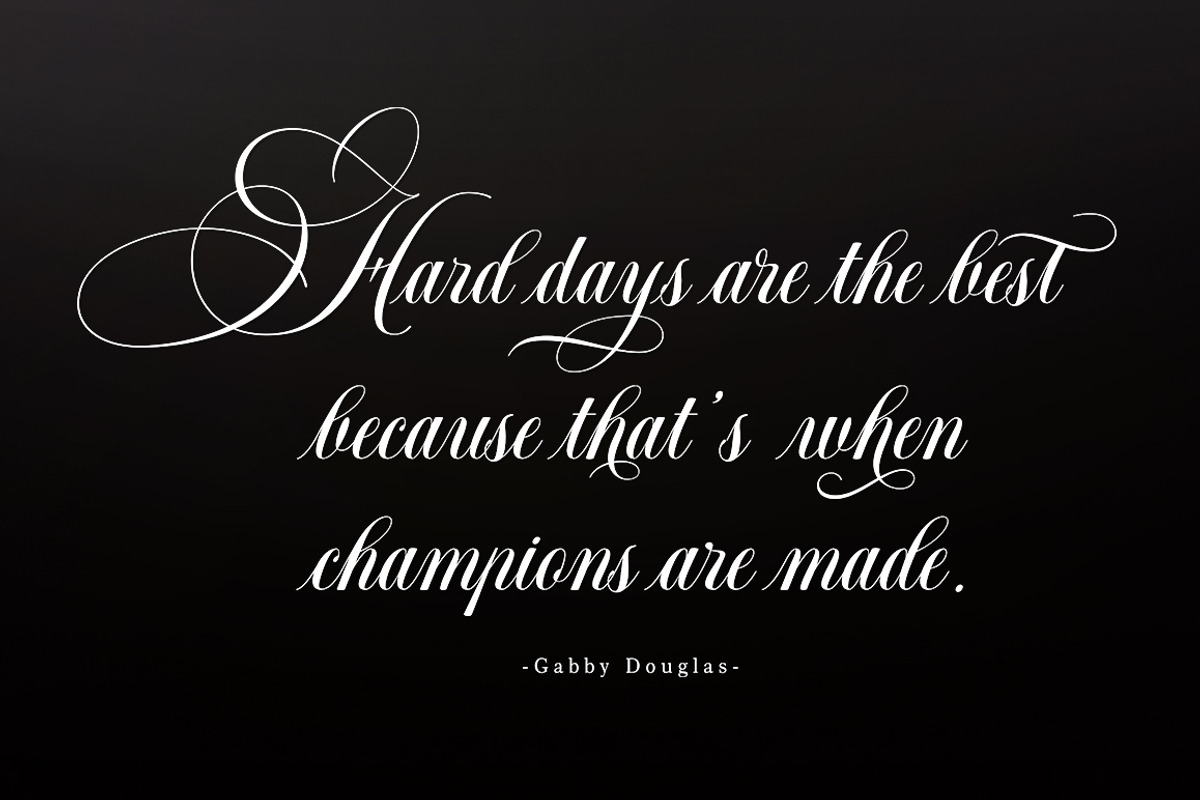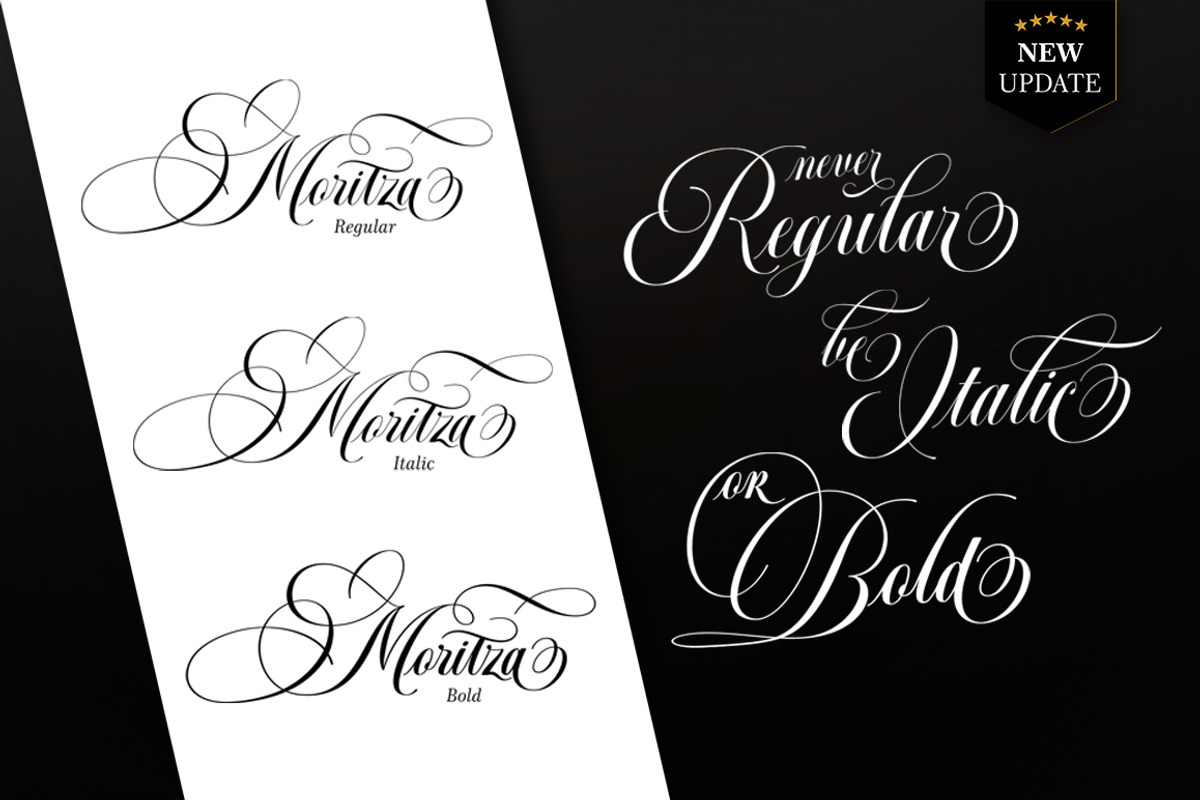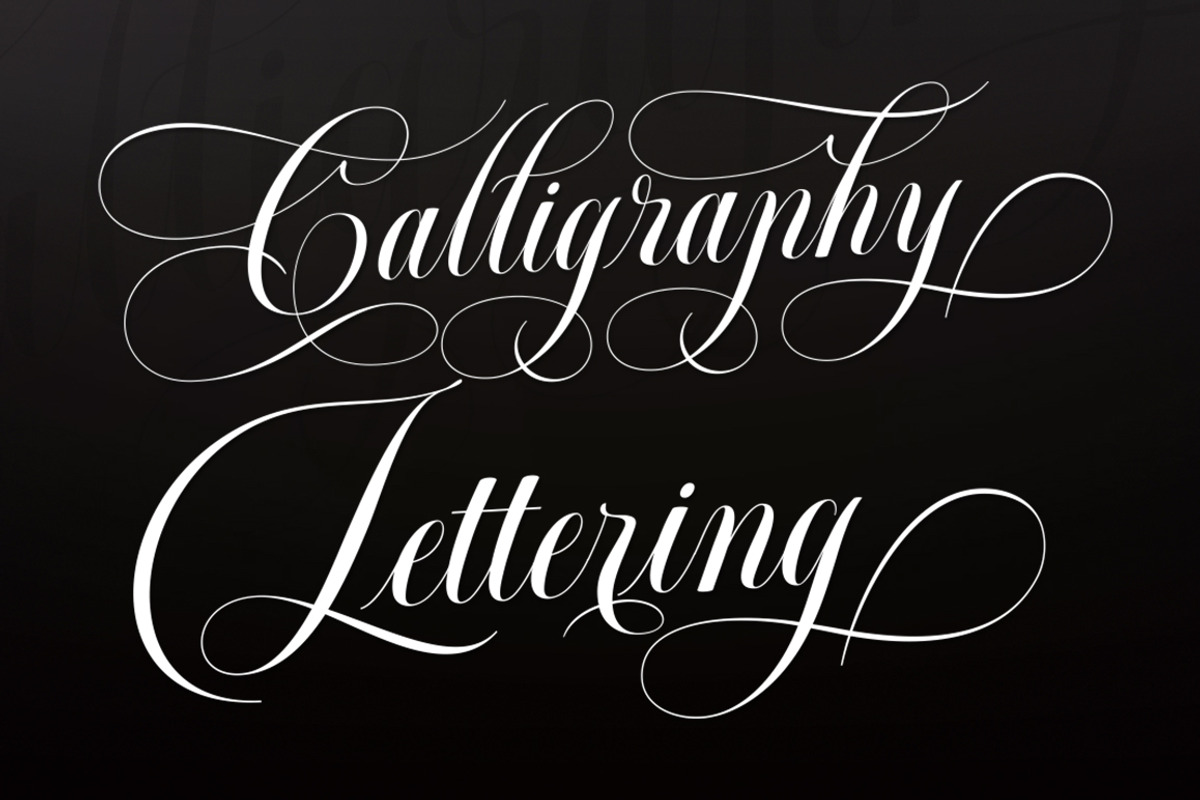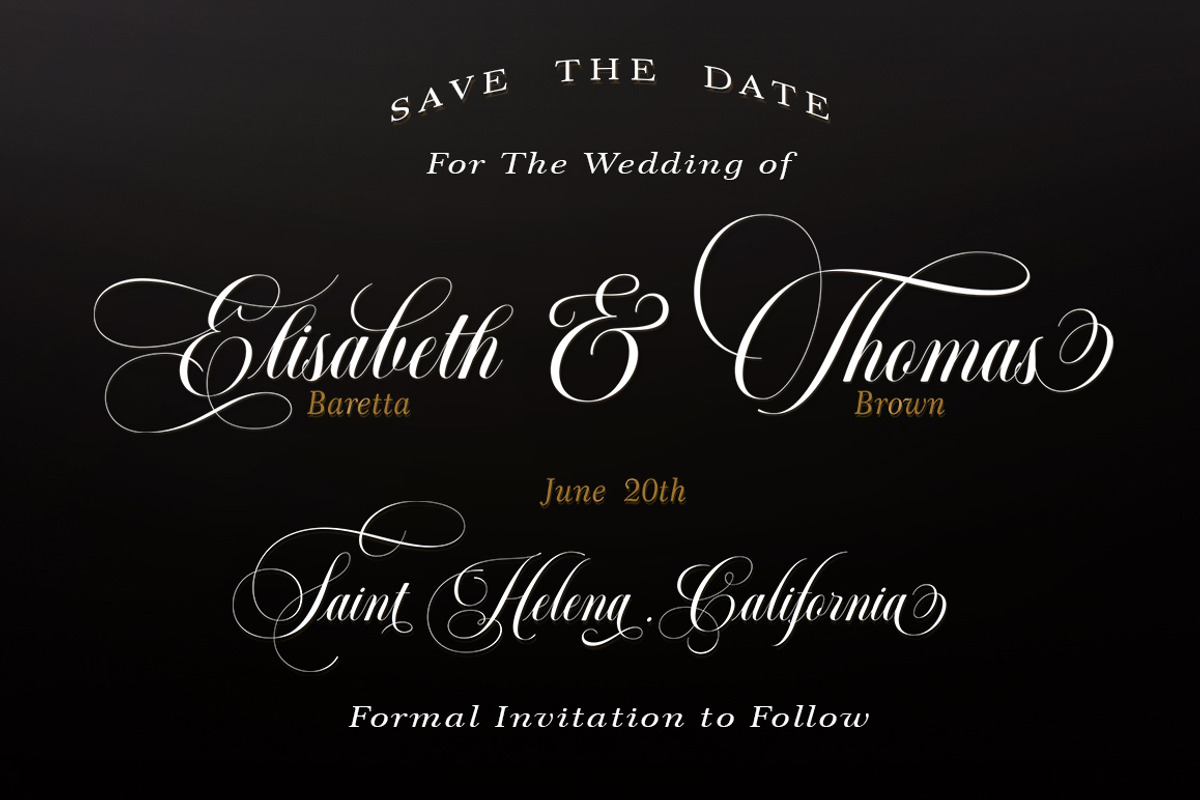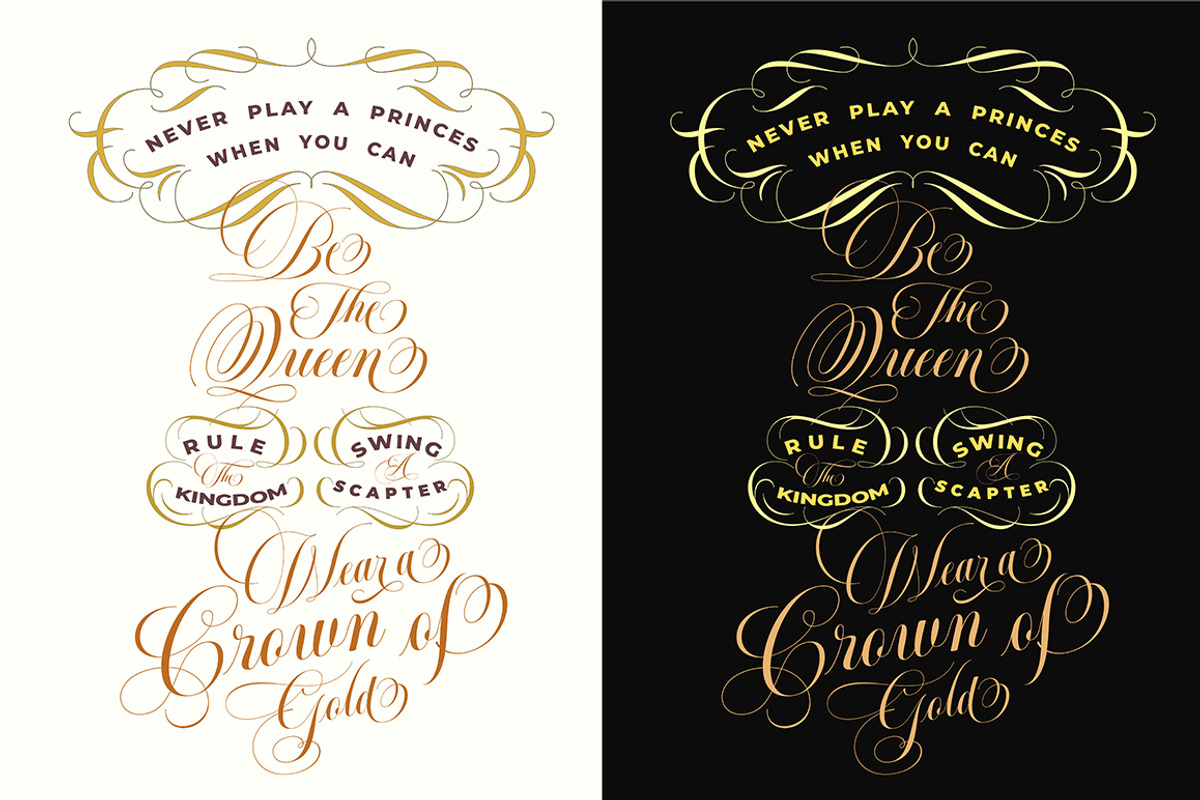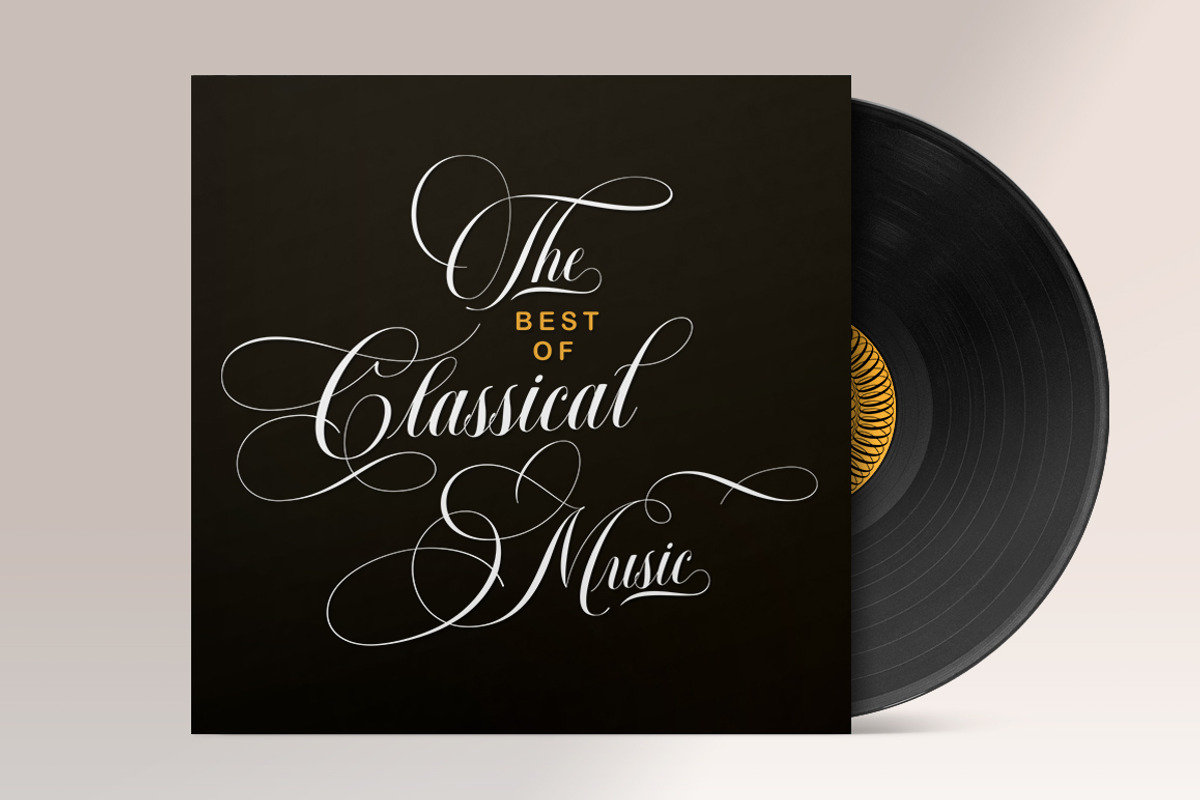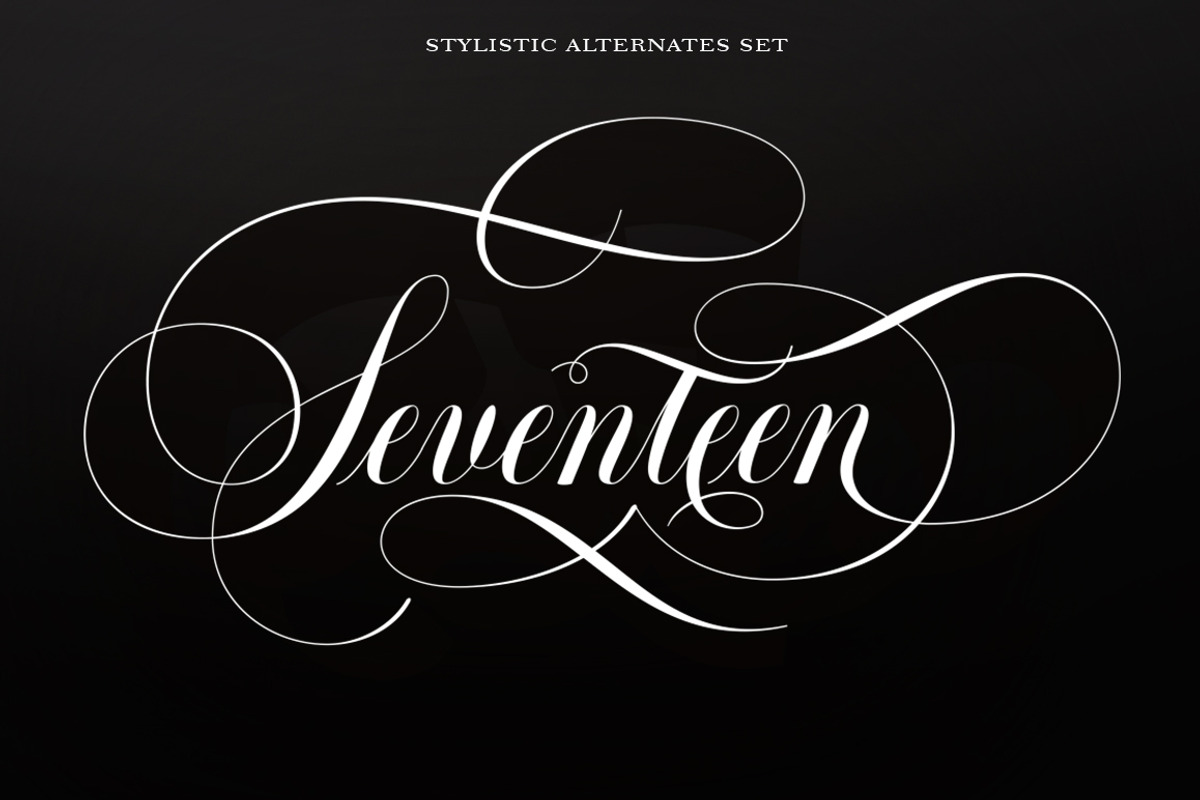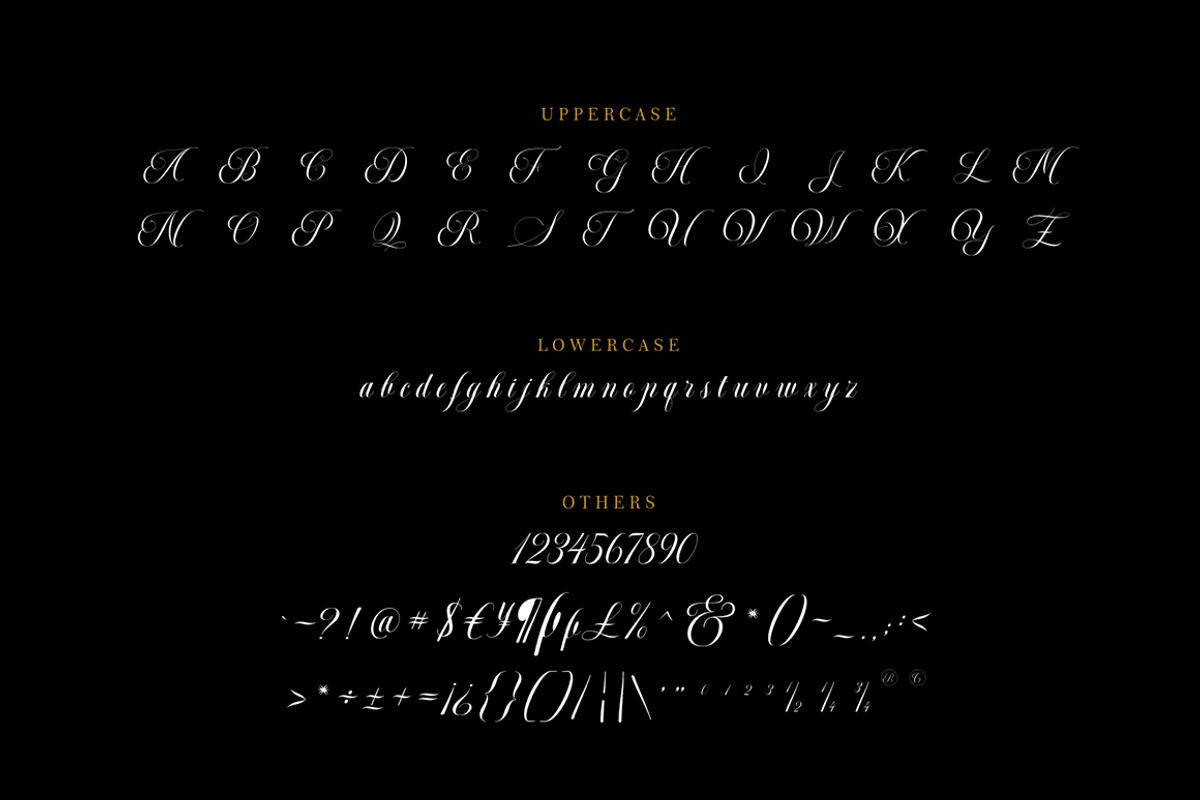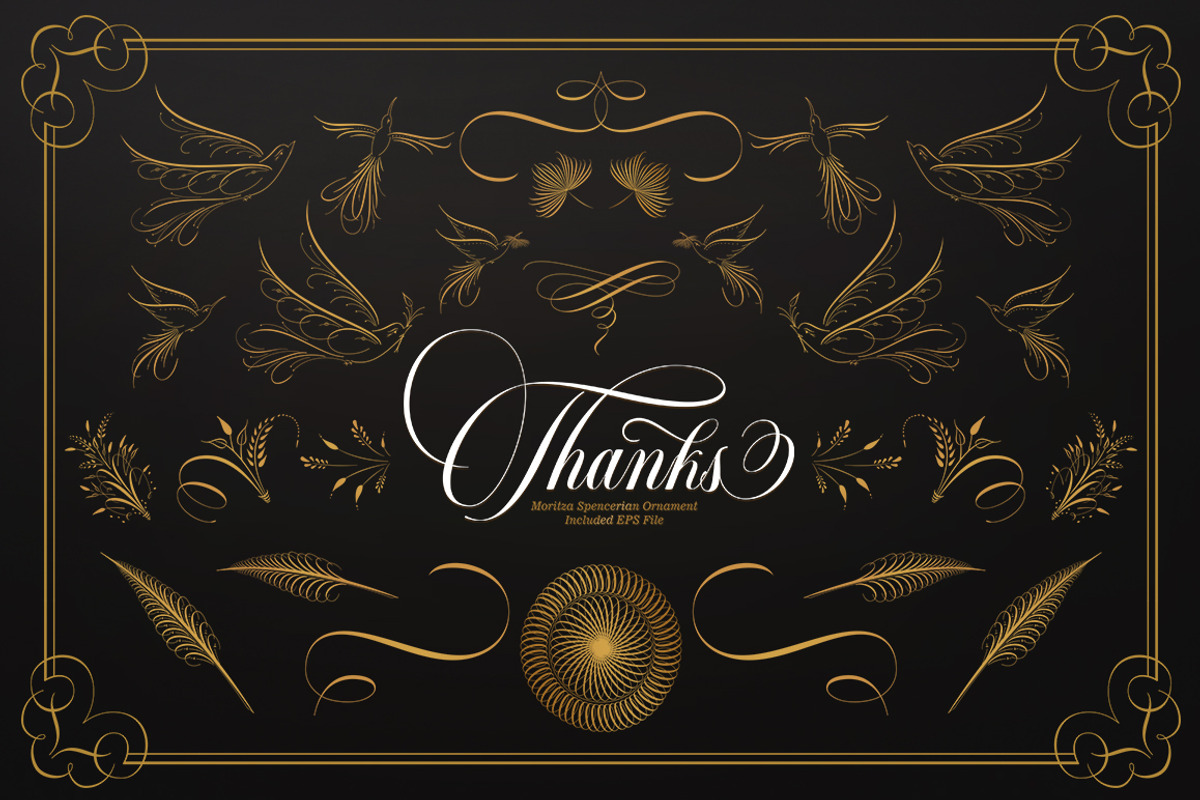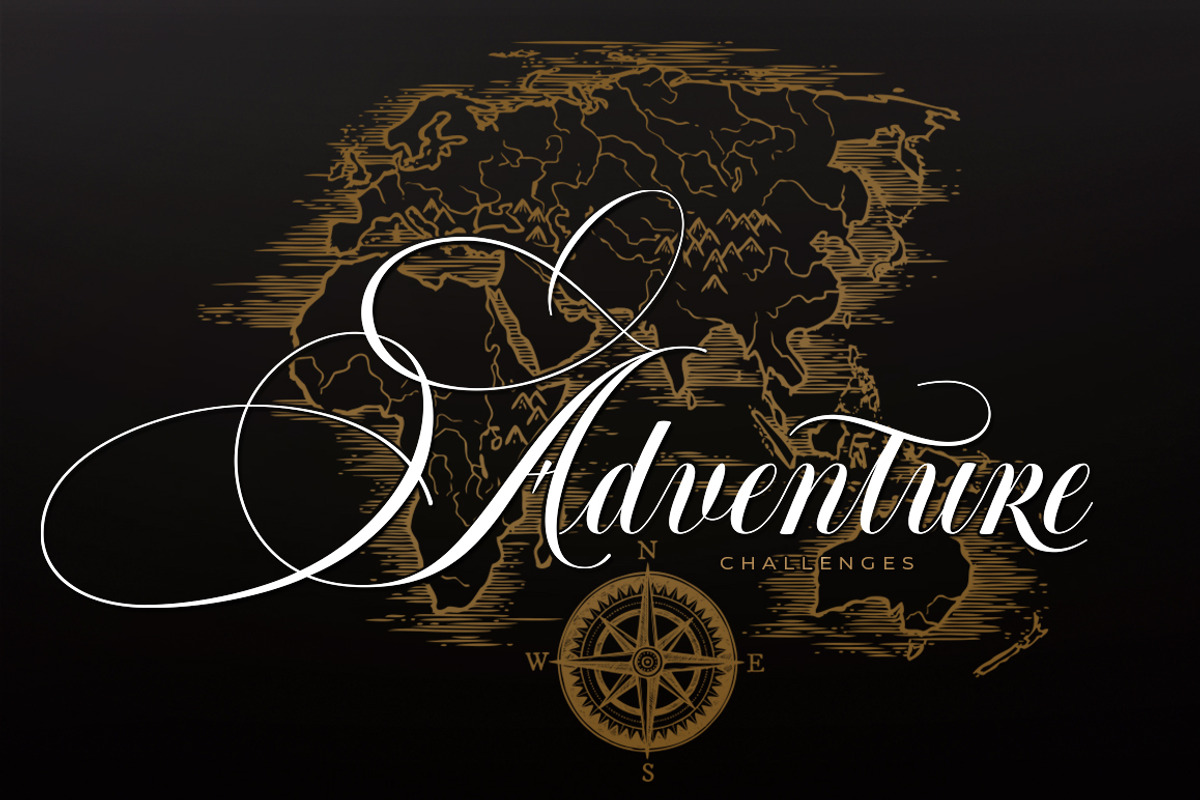
Moritza Script With Ornament
Moritza Script - New Update
Moritza Script is a calligraphy script font that comes with lovely alternates character. a mixture of from copperplate calligraphy with handlettering style. Designed to convey style elegance. Moritza is attractive like a smooth, clean, feminine, sensual, glamorous, simple and highly legible typeface. Its classic style is perfect to be applied in any type of formal pieces such invitations, labels, menus, Logos, fashion, make up, stationery, letterpress, romantic novels, magazines, books, greeting / wedding cards, packaging, labels.
Moritza features 840+ glyphs and 495+ alternative characters. including multiple language support. With OpenType features with stylistic alternates, ligatures and swash characters, that allows you to mix and match pairs of letters to fit your design, and also a touch of ornament makes this font look elegant.
New Update • Moritza Script! Moritza has now been updated to include 3 styles; bold version, regular & italic version. This gives you the option to completely change your font style with the click of the mouse, whether you're looking for a smoother style, a bold version, or an italic finish. And don't forget the elegant touch of ornament.